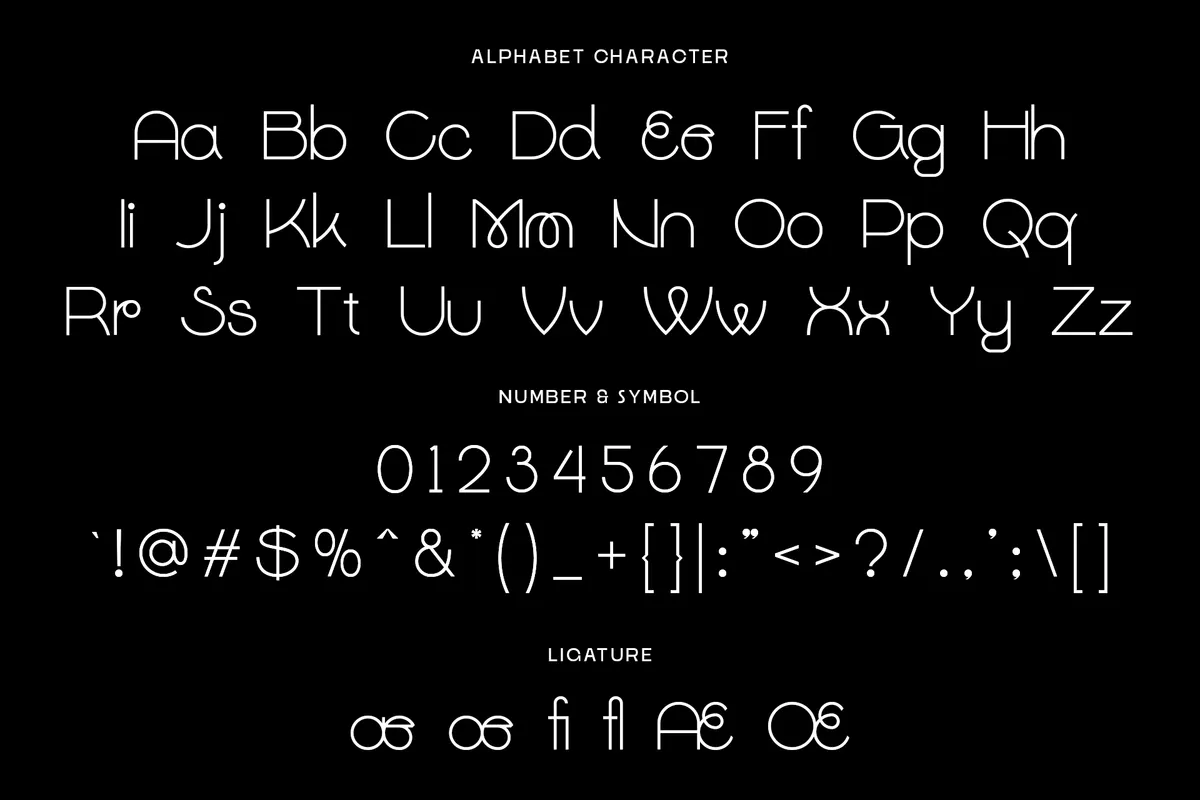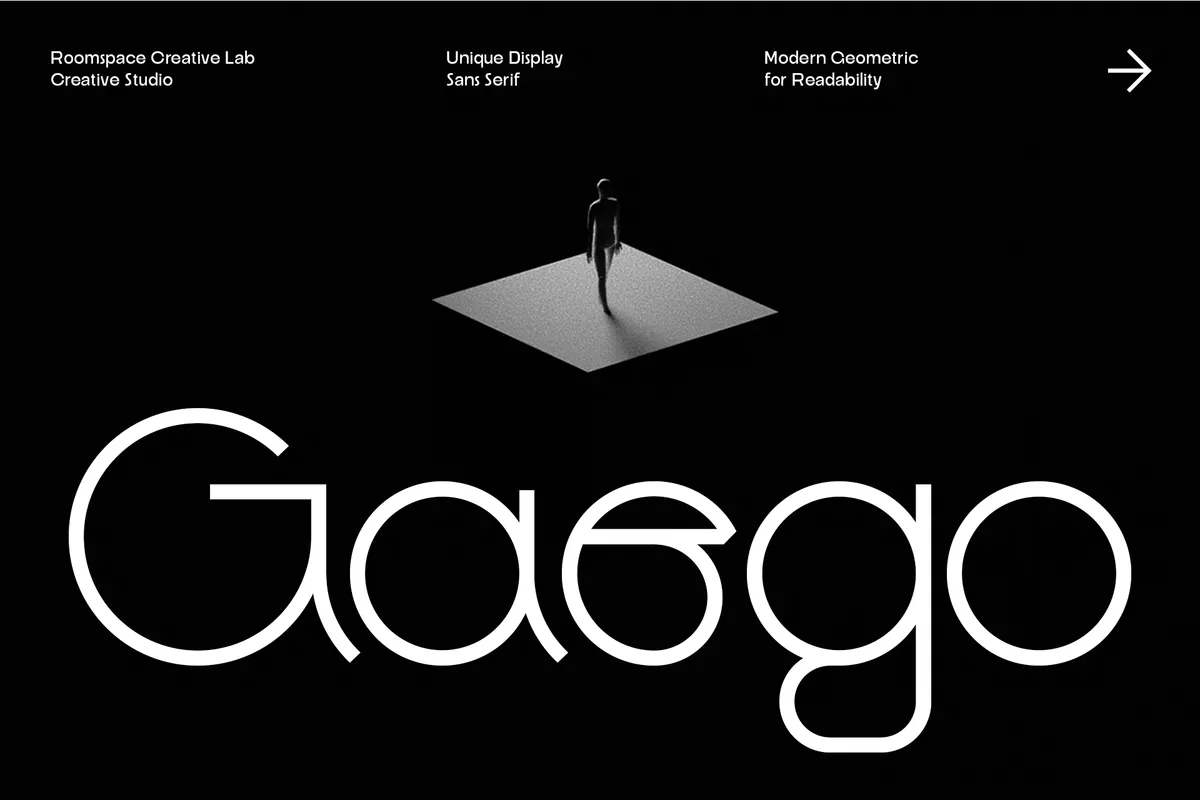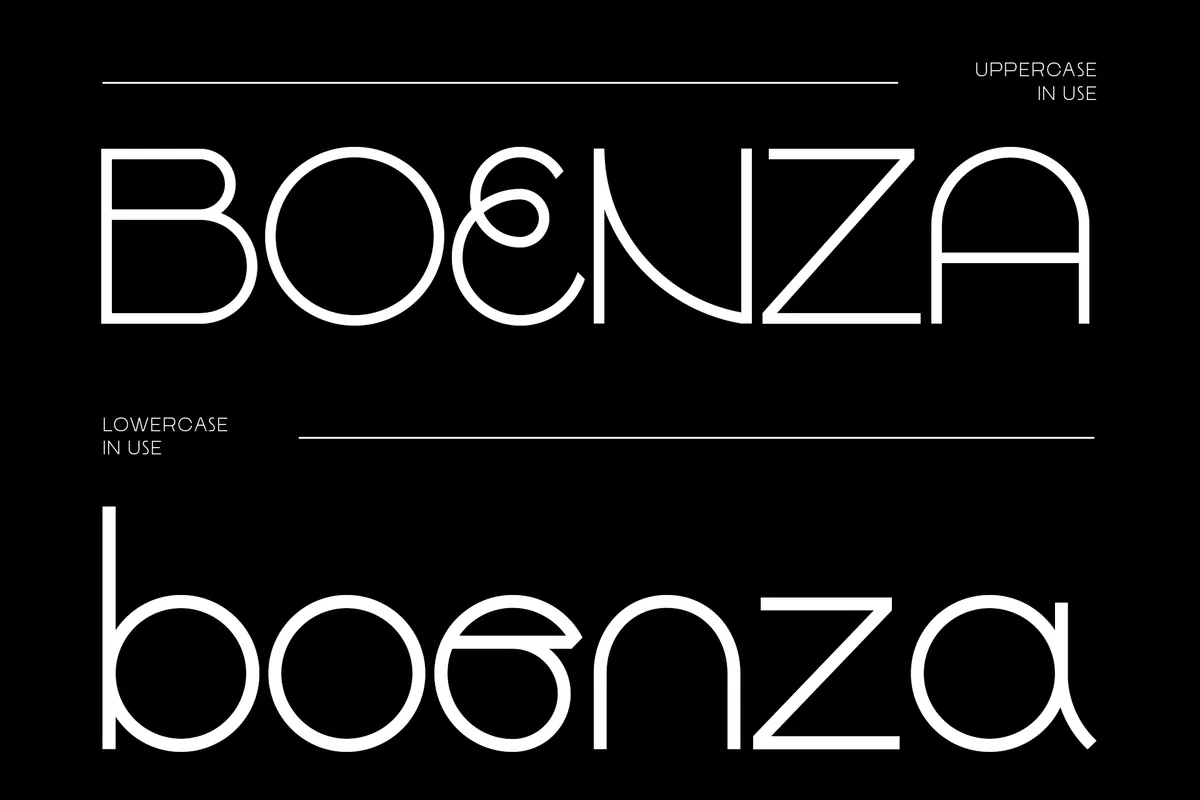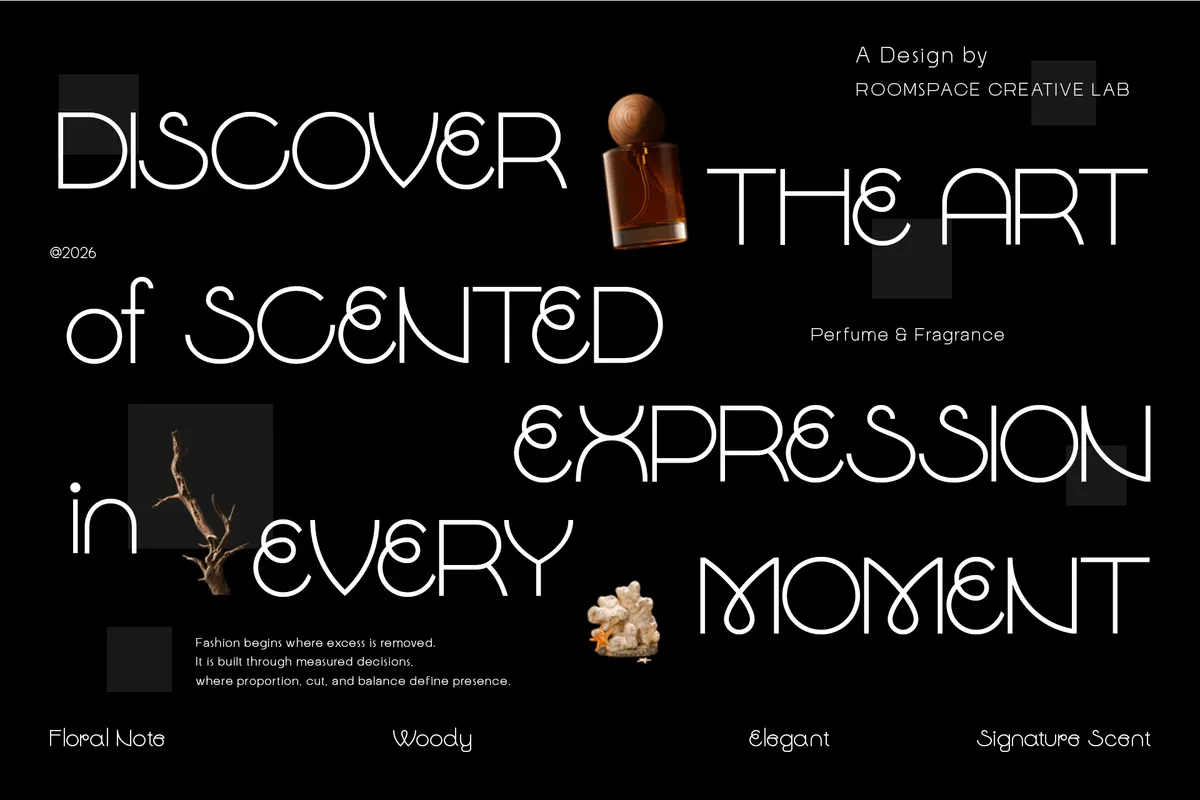
Gaego - Monoline Geometric Display Font
Gaego
Gaego is a monoline geometric display font drawn at a single hairline weight, with circular bowls, a high waist, and an angled bar on the E that tips the whole alphabet toward deco signage. The letters are wide and sparse, so a word needs room around it to read.
The one weight is a headline weight — at caption size the hairline strokes disappear. Use it for perfume and cosmetics packaging, boutique logos, gallery invitations, fashion editorial titles, spa and salon identities, menu headings, and lookbook covers.
- one style: Regular;
- uppercase & lowercase;
- numerals, punctuation & symbols;
- standard ligatures;
- 207 glyphs.